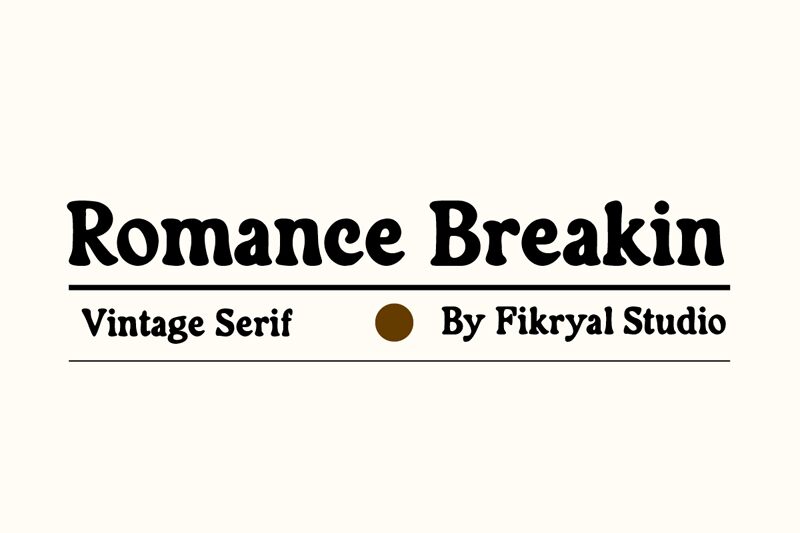
Romance Breakin
Romance Breakin font, crafted by Fikryal Studio, is a captivating serif typeface that exudes boldness and creativity. Its striking character forms display exaggerated curves and playful flourishes, making it visually memorable and distinctive. The substantial weight of the letters adds a sense of importance and drama, inviting attention in any context.
This font's aesthetic appeal is amplified by its unique combination of elegance and modernity, perfect for both romantic themes and contemporary designs. Ideal for branding, invitations, or editorial work, Romance Breakin seamlessly blends artistry with functionality. Its playful yet bold style ensures it stands out in a variety of applications-from event posters to chic website headers-making it a versatile choice for designers seeking to make a statement.